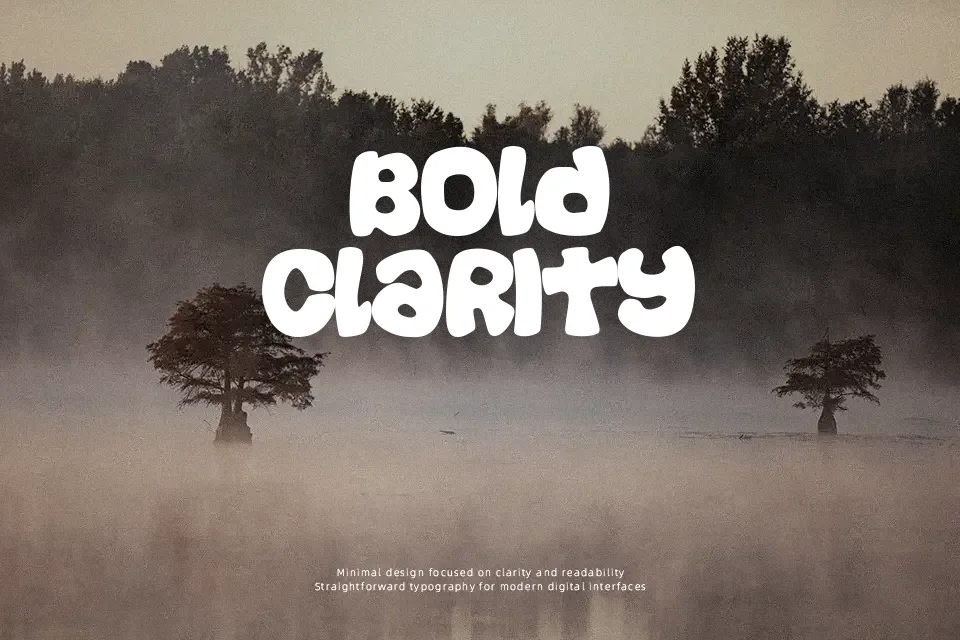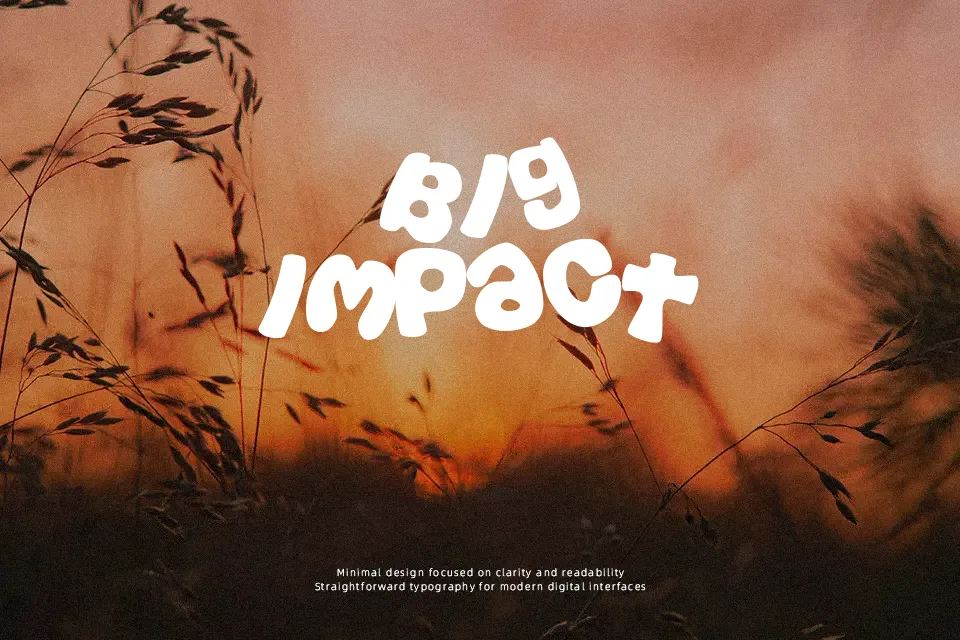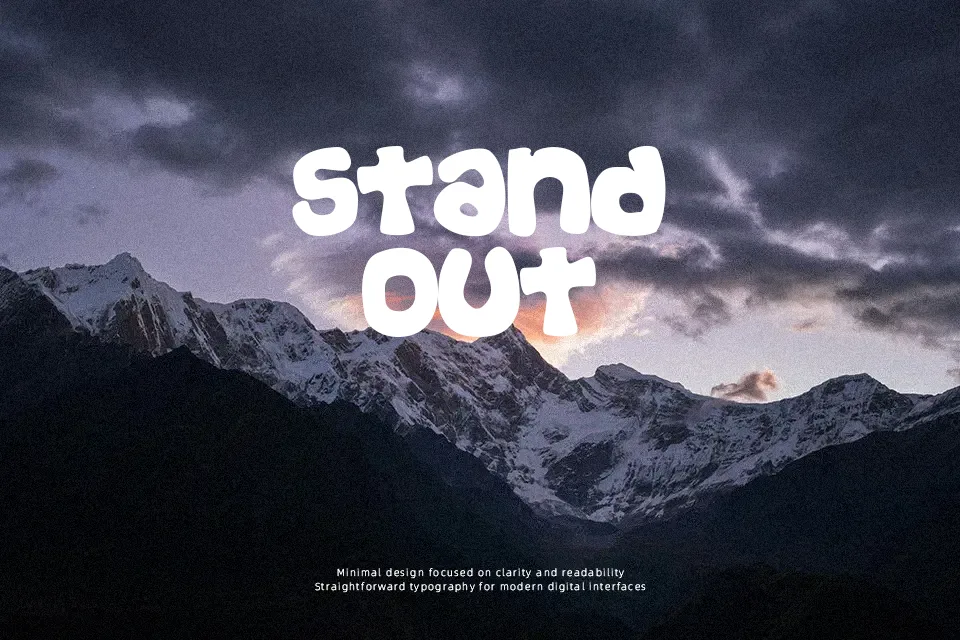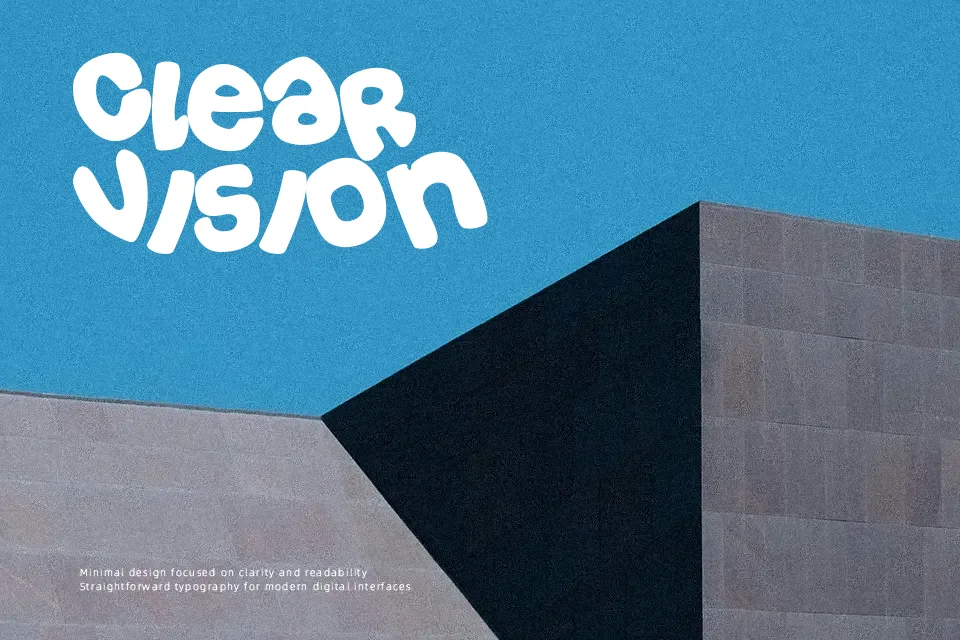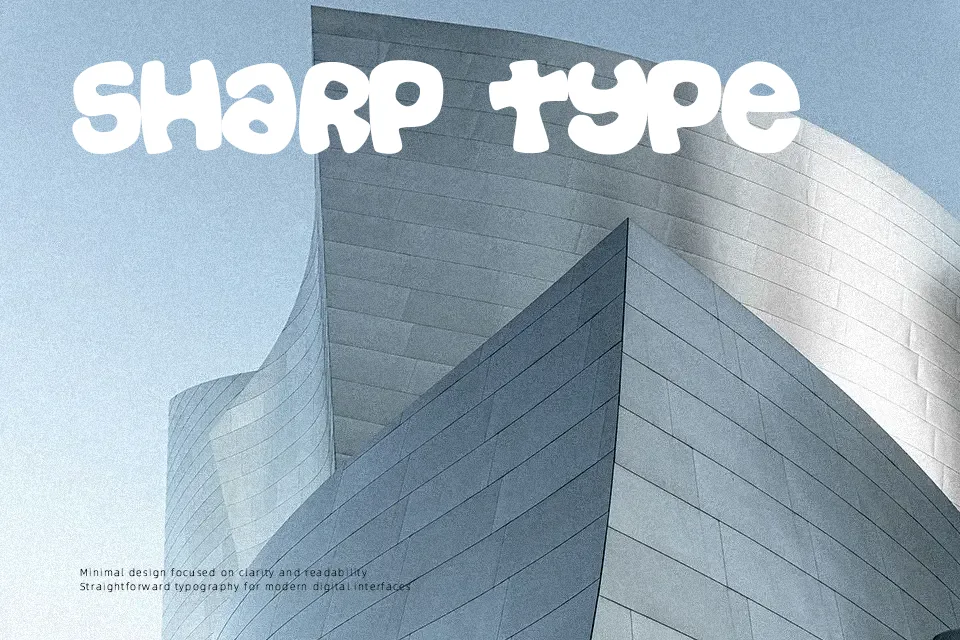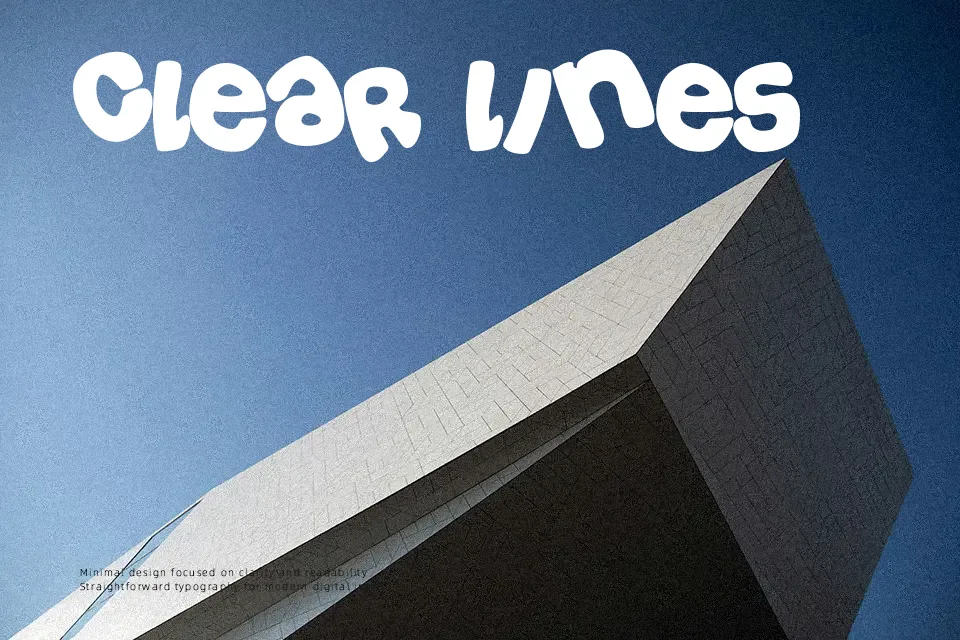
Casual Font
Featuring thick, rounded outlines and asymmetrical letterforms, Casual Font establishes an informal and cheerful tone across headline layouts. The typeface pairs uniform heavy stroke weights with softened terminals, generating substantial visual weight while keeping individual glyphs distinct. Letter spacing is relatively compact, which enhances visual cohesion across short titles but causes dense clusters when characters are scaled down. Because the internal counters remain open at display sizes, the letterforms maintain solid readability on event flyers, merchandise graphics, and playful packaging designs. However, the exaggerated proportions and heavy ink weight make it unsuitable for continuous paragraph reading or intricate interface labels.
Best For: children’s book covers, animated video thumbnails, casual restaurant menus, party event flyers
Not Ideal For: long editorial paragraphs, financial spreadsheets, mobile app body copy, formal legal documents
Perfect for advertising, headline, and kids, with a bold and cartoon style.